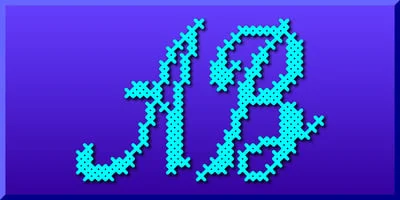
Cross Stitch Splendid Font
Cross Stitch Splendid Font excels in handcraft project designs, embroidery pattern books, quilting workshop materials, artisan craft packaging, traditional sewing branding, handmade product labels, craft fair signage, needlework tutorial graphics, vintage textile designs, and homemade gift presentations. Its stitched character makes it perfect for projects requiring handcrafted charm and traditional needlework authenticity.
What makes Cross Stitch Splendid Font exciting is its authentic recreation of traditional cross-stitch embroidery that captures the meticulous beauty and patient craftsmanship of hand-stitched textiles. The font features pixelated letterforms that perfectly mimic the grid-based structure of cross-stitch patterns while maintaining excellent digital readability. Its stitched character transforms modern typography into nostalgic celebrations of traditional needlework arts and handmade craftsmanship.
The Cross Stitch Splendid Font family includes Regular, Bold, Fine, Pattern, Sampler, Traditional, and Vintage variations. Each style preserves the font's cross-stitch essence while offering different stitch densities and needlework weights for creating authentic craft-related graphics. The comprehensive character set includes craft symbols, needlework ornaments, stitching patterns, and traditional textile glyphs essential for genuine handcraft and embroidery typography projects.
Craft enthusiasts and handmade businesses consistently choose Cross Stitch Splendid Font for projects demanding authentic needlework typography solutions. The font's stitched character instantly establishes handcrafted atmospheres while ensuring clear communication across craft marketing channels. Its versatility spans from subtle needlework touches to bold statements that celebrate the patience and skill of traditional textile arts.
Whether you're developing craft brand identities, creating needlework instructional materials, or designing handmade marketing campaigns, Cross Stitch Splendid Font provides the perfect combination of traditional authenticity and modern functionality. The font's meticulously crafted letterforms ensure genuine cross-stitch character while maintaining excellent performance across various craft applications and artisan business communications.
The handcraft heritage of Cross Stitch Splendid Font makes it exceptional for creating meaningful connections with audiences who appreciate traditional textile arts and handmade quality. Its stitched precision and needlework appeal work seamlessly across traditional craft publications and modern digital crafting platforms. The font performs beautifully in both large-scale craft displays and intimate handwork instructions.
Stitch together memories with Cross Stitch Splendid Font and discover how authentic needlework typography can enhance your craft projects with genuine handmade appeal and traditional charm. This remarkable typeface combines cross-stitch tradition with contemporary functionality, making it indispensable for crafters celebrating the timeless beauty of hand-stitched artistry and patient needlework dedication.